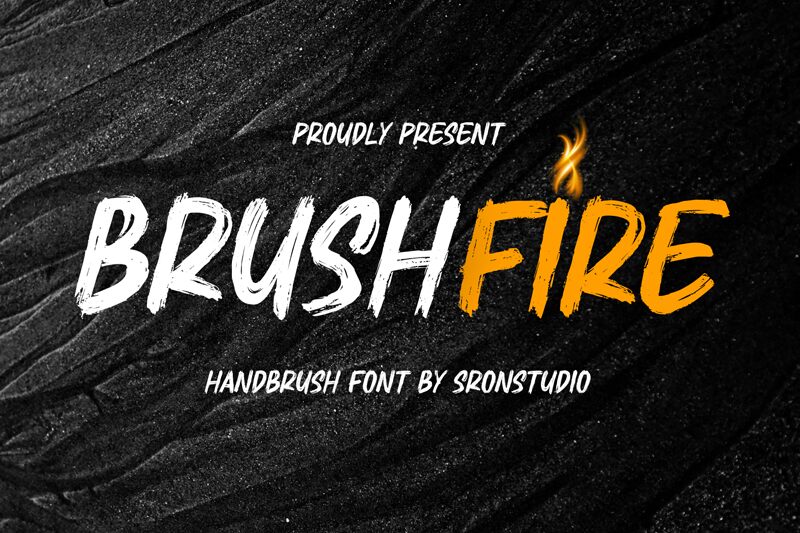
Brushfire font has been crafted by Sronstudio as a bold, brush-style typeface with thick textured strokes and great character contrast. Energetic and highly dynamic, Brushfire joins the free font list of fonts with an informal feel that resembles real handwriting and sketching. This typeface will give off youthful vibes to your designs at all times.
Use Brushfire in greeting cards, a limited edition product package label, editing pictures for social media, making announcements posters or designing merchandise catch-phrases. Let go of your inner artist!